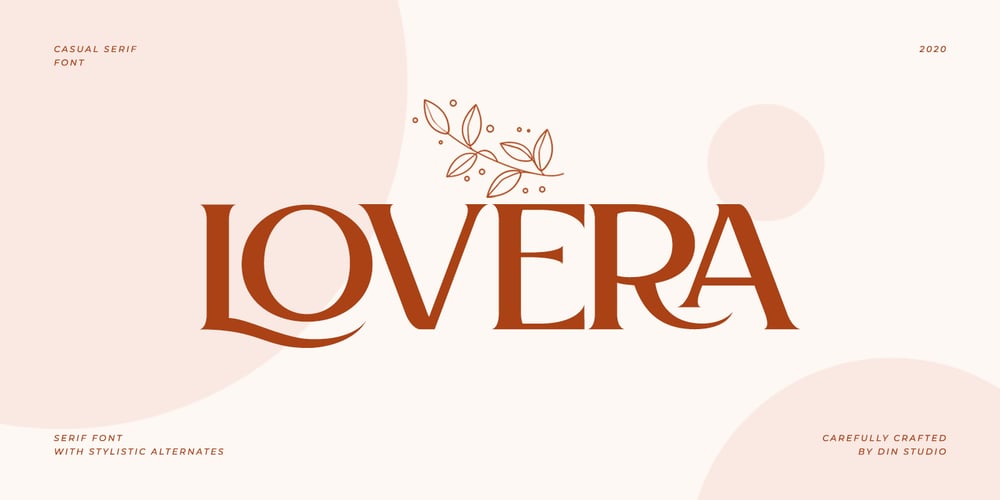
Lovera Font Family was designed by Donis Miftahudin and published by Din Studio. Lovera contains 1 styles and family package options. Lovera is elegant serif font. Made for any professional project branding. It is the best for branding, printing, wedding and quotes. Every letter has a unique and beautiful touch.Features: Beautiful Ligatures Many Swashes Stylistic Sets PUA Encoded Multilingual Support Numerals and Punctuation Thank you for downloading premium fonts from Din Studio